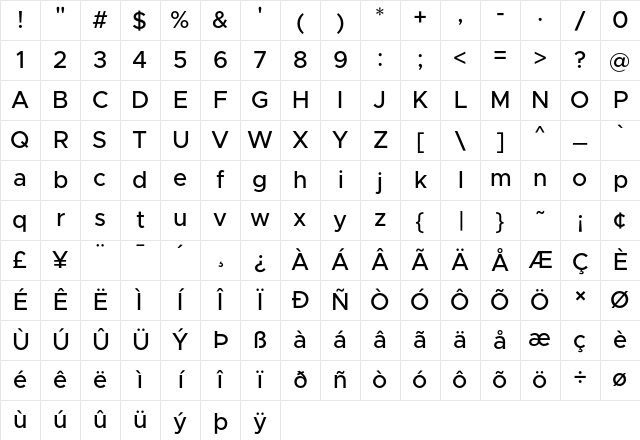
Metropolis is a composed and adaptable typeface that performs quietly and consistently across a wide range of design contexts.
Pro Tip: Use Metropolis in both headline and body roles to test its range before committing to a single application.